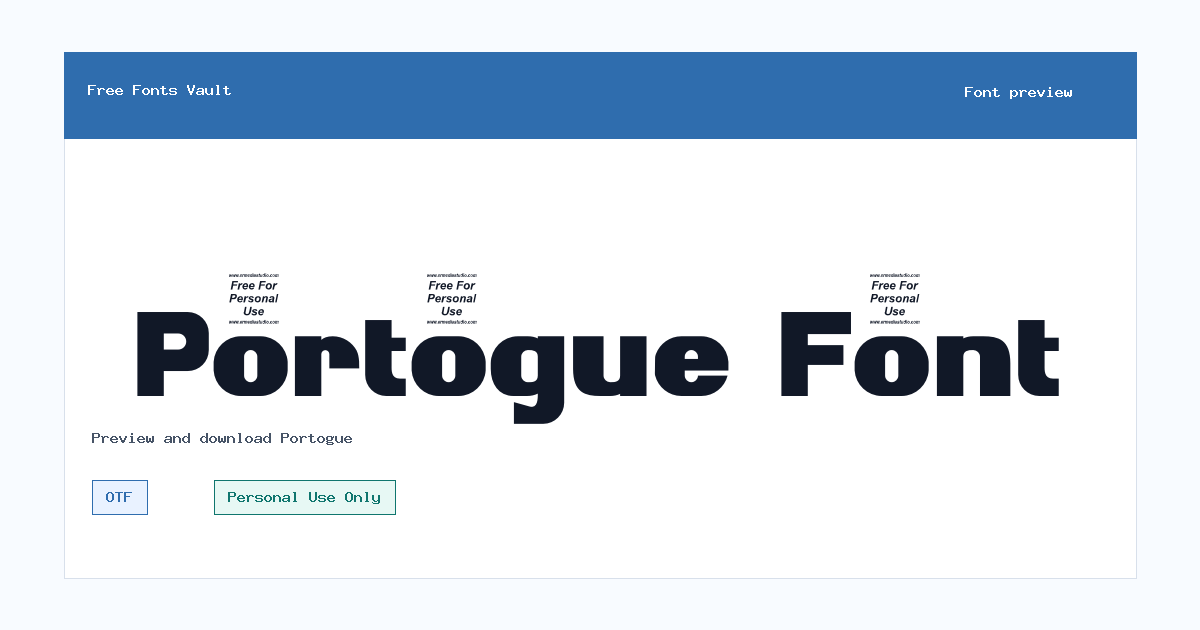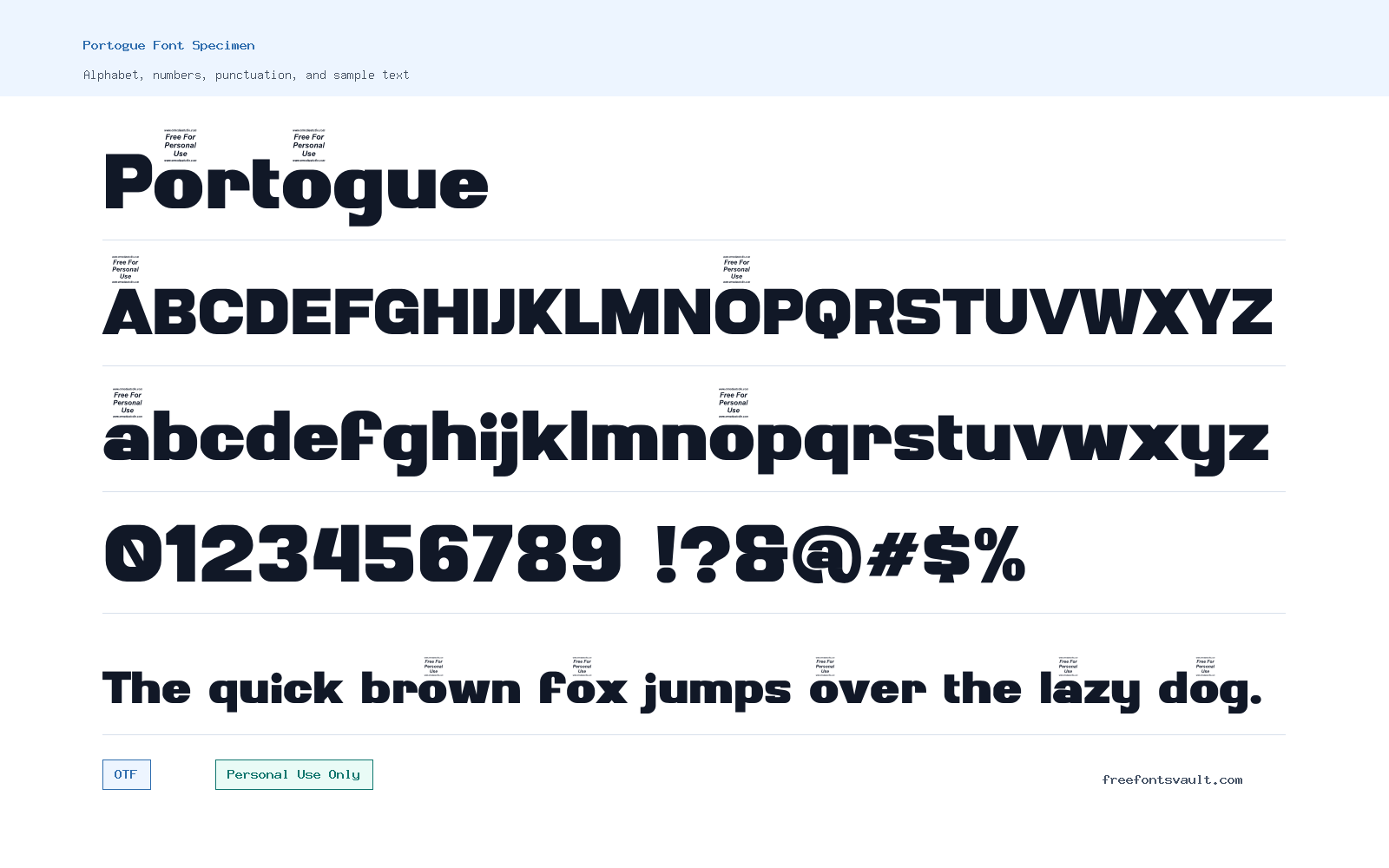
Portogue
- Designer Ermedia studio
- Foundry Ermedia Studio 2024
Portogue font.
Portogue is a clean sans serif font with a modern display feel, best suited for short text that needs a simple but polished look.
About Portogue Font
Portogue works well when you want a sans serif style that feels direct, tidy, and easy to test in a preview tool. Its regular weight makes it useful for headings, nameplates, short branding text, social graphics, labels, and poster lines where the words need to stand clearly without heavy decoration. Because only the regular OTF file is listed, it is best treated as a focused display choice rather than a large family for full editorial layouts.
Use the preview box to test the exact words you plan to design with, especially if your project uses tight spacing, all caps, numbers, or punctuation. Sans serif display fonts can look strong in a logo mockup or title but may feel less comfortable in long paragraphs, so try Portogue first in short blocks such as headlines, product names, quote cards, packaging text, and website hero sections. For body copy, pair it with a more neutral text font that has multiple weights and strong small-size readability.
- Clean sans serif style suited to headings, logos, posters, and short display text
- Single regular style, making it easy to preview but less flexible than a multi-weight family
- Logo drafts and personal branding mockups
- Poster titles, event graphics, and social media headings
- Website hero text, banners, and short callouts
- Packaging concepts, labels, and personal design experiments
- Mood boards and typography tests before choosing a commercial project font
The font is credited to Ermedia studio, with the foundry information listed as Ermedia Studio 2024.
What type of font is Portogue?
Portogue is listed as a sans serif font in a regular OTF style. It is best tested for headings, logos, posters, and other short display uses.
Who designed Portogue?
Portogue is credited to Ermedia studio, with foundry information shown as Ermedia Studio 2024.
Can I use Portogue for body text?
You can test it, but it is better suited to short text. For long paragraphs, pair it with a dedicated body font that remains comfortable at smaller sizes.